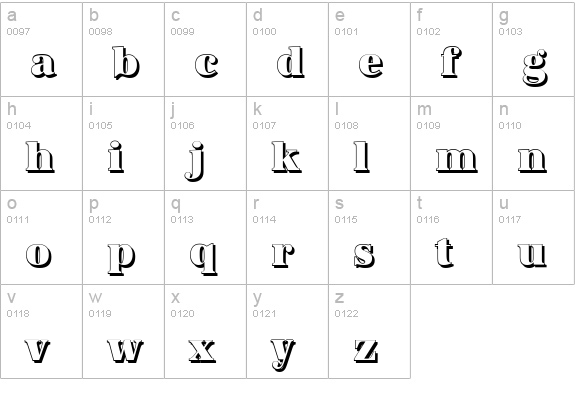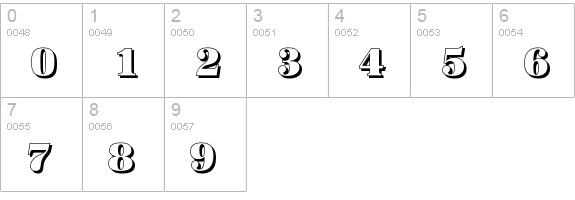
AntiquaSh-Cd-Heavy-Regular is a heavy, high-impact variant in the AntiquaSh typeface family \xE2\x80\x94 well suited to high-impact headlines, posters, and display advertising.
AntiquaSh-Cd-Heavy-Regular font is a timeless and elegant typeface that exudes sophistication and charm. With its classic serif style and bold weight, this font is perfect for conveying a sense of authority and tradition in your design projects. Its clean lines and sharp edges make it ideal for headlines, titles, and other prominent text elements. What sets AntiquaSh-Cd-Heavy-Regular font apart is that it is available for free download at FontsMarket.com. This means you can easily access and use this high-quality typeface without any cost, making it a valuable addition to your font library. Whether you're working on a print project, web design, or branding materials, AntiquaSh-Cd-Heavy-Regular font will add a touch of sophistication and professionalism to your work. Download it today and elevate your designs with this timeless and versatile font.